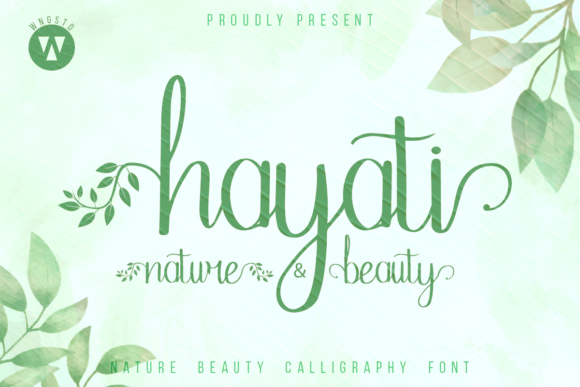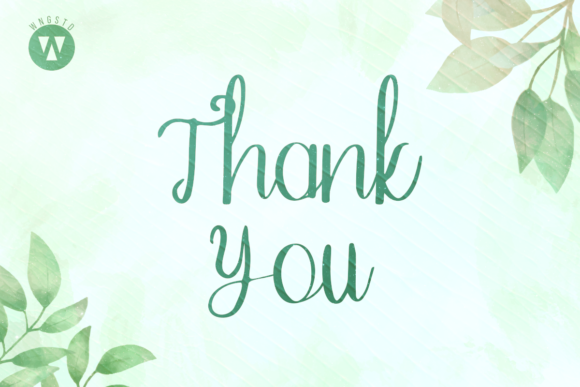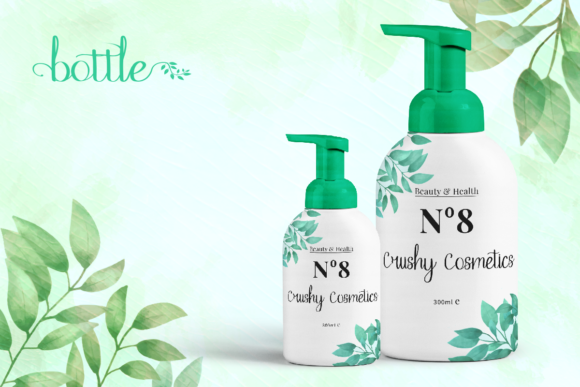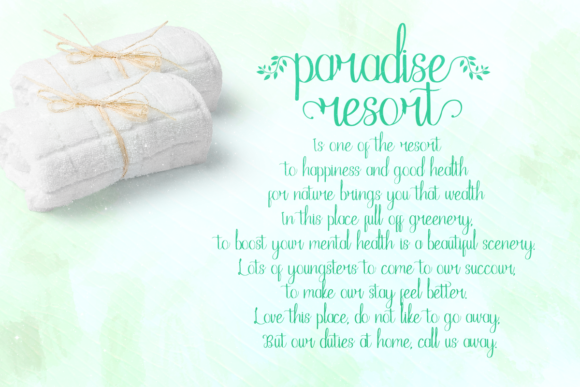
About Hayati Font
“Hayati” sounds like a stunning handwritten font inspired by nature, making it a perfect choice for design projects that seek a charming and natural appearance. Its theme centered around nature adds a touch of beauty and tranquility to any creative endeavor.
With Hayati, you can bring the enchanting essence of nature to life in your designs. Whether you’re working on greeting cards, posters, logos, branding materials, or any other project that calls for a captivating and charming look, this font can effortlessly deliver the desired effect.
The font’s handwritten style exudes authenticity and warmth, creating a personal connection with your audience. It can evoke a sense of being handwritten with care, as if the message is a heartfelt note from nature itself.
One of the significant advantages of Hayati being PUA encoded is the easy access to its full range of glyphs and swashes. This feature allows you to explore various decorative elements, ligatures, and alternate characters with convenience. This versatility provides the freedom to customize the typography according to your creative vision, allowing you to add unique touches to your designs effortlessly.
The nature-inspired theme of Hayati opens up various creative possibilities. You can use it for projects related to eco-friendly brands, natural products, outdoor events, or any subject matter that aligns with the essence of nature. Its versatility allows you to adapt it to both digital and print media with equal charm.
When using Hayati in your designs, ensure that the layout maintains readability and coherence. Proper kerning and spacing will guarantee that the text flows seamlessly and remains easy to read.
In conclusion, Hayati is a captivating handwritten font that captures the beauty and serenity of nature. Its PUA encoding enhances its appeal by providing easy access to a wide range of glyphs and swashes. Embrace the charm of Hayati in your design projects, and watch it add a touch of enchantment and beauty that resonates with the natural world. Let it be the source of inspiration that breathes life into your designs and leaves a lasting impression on your audience.